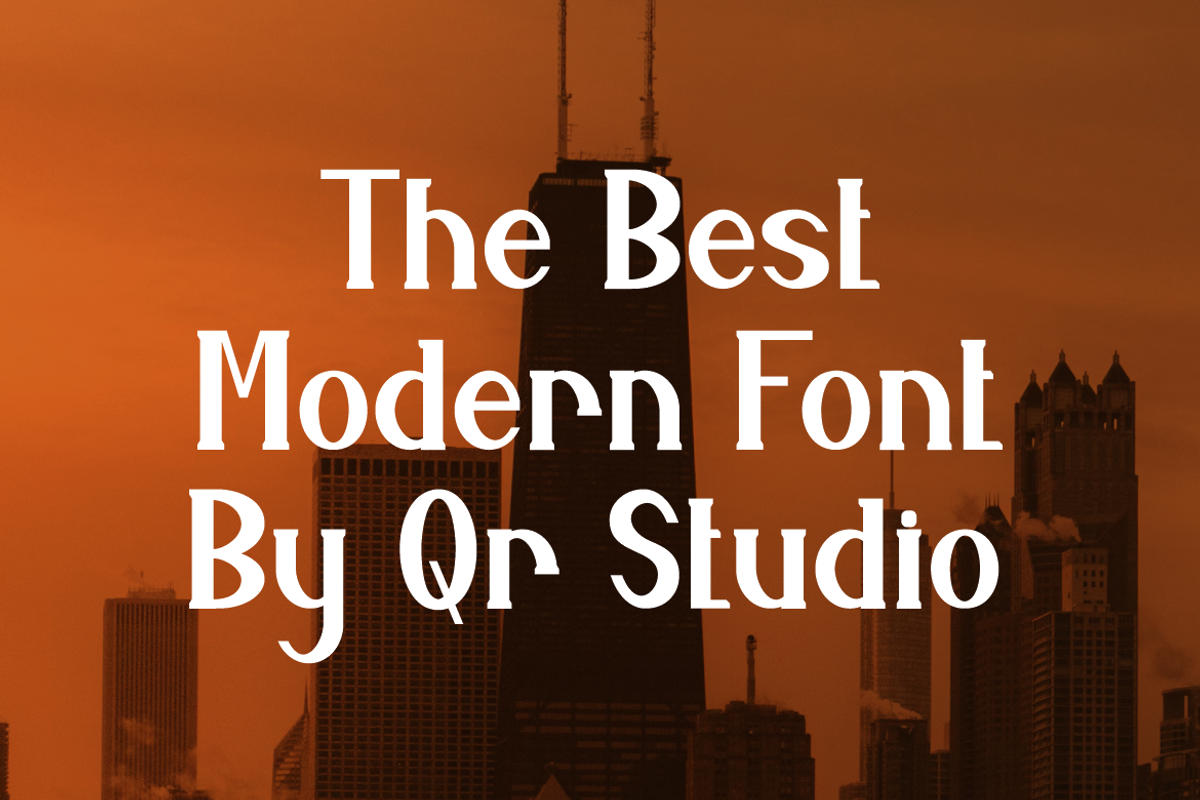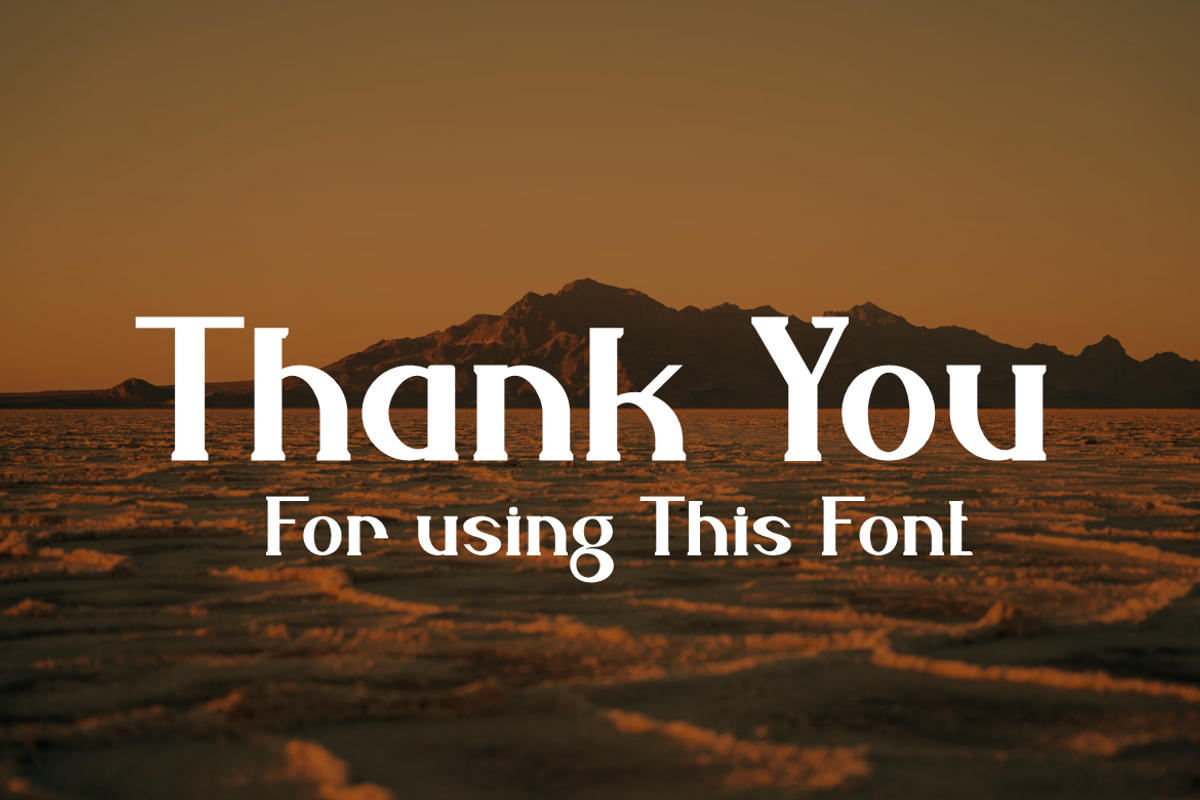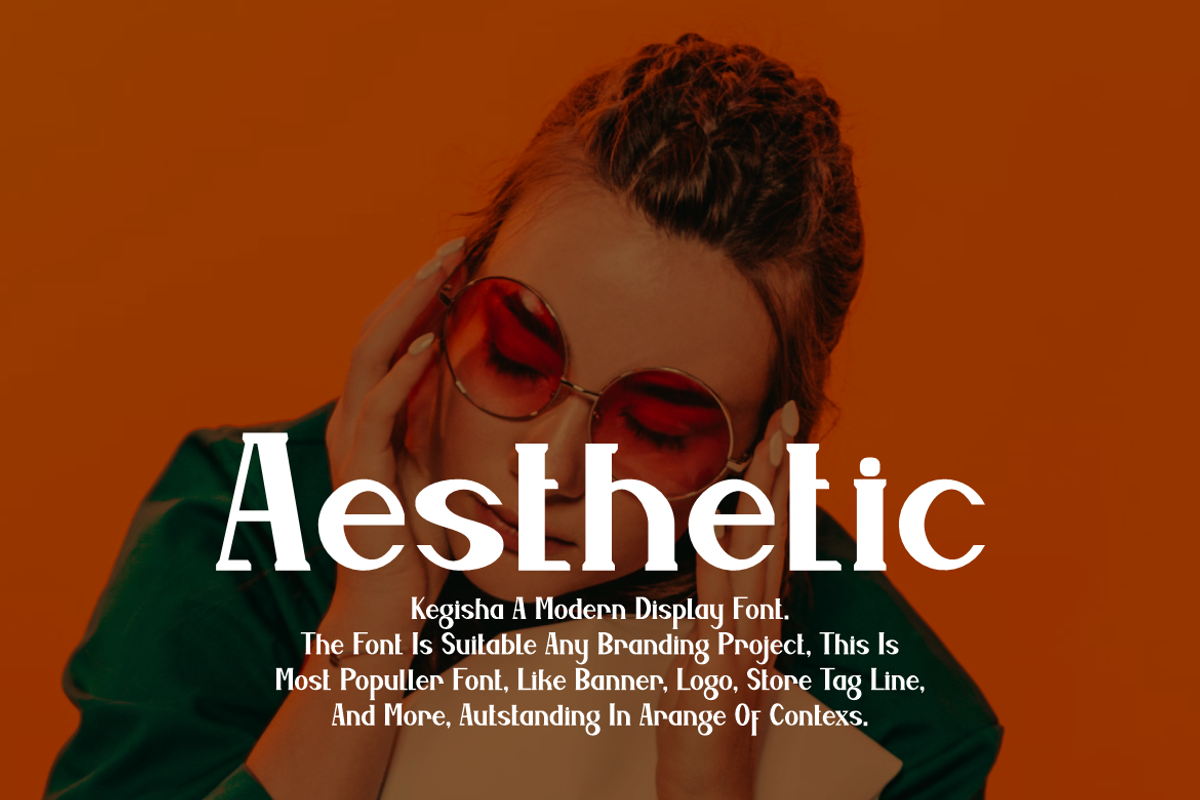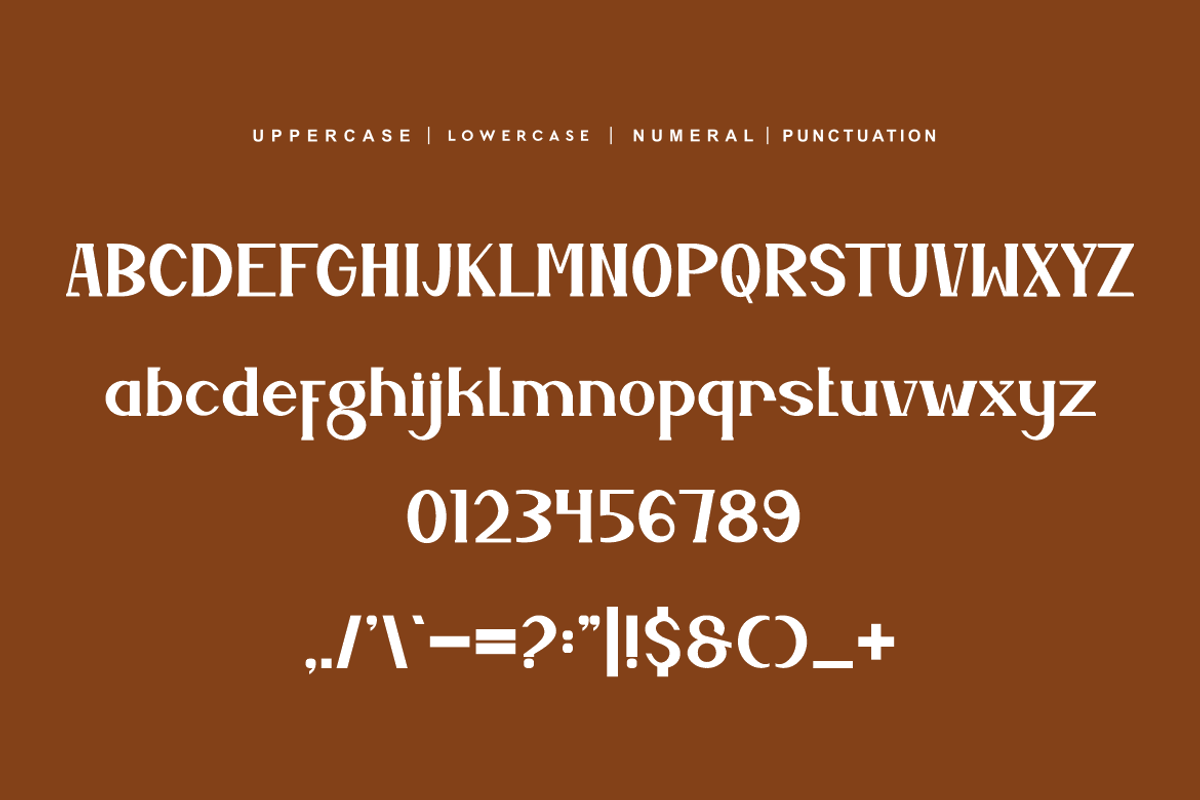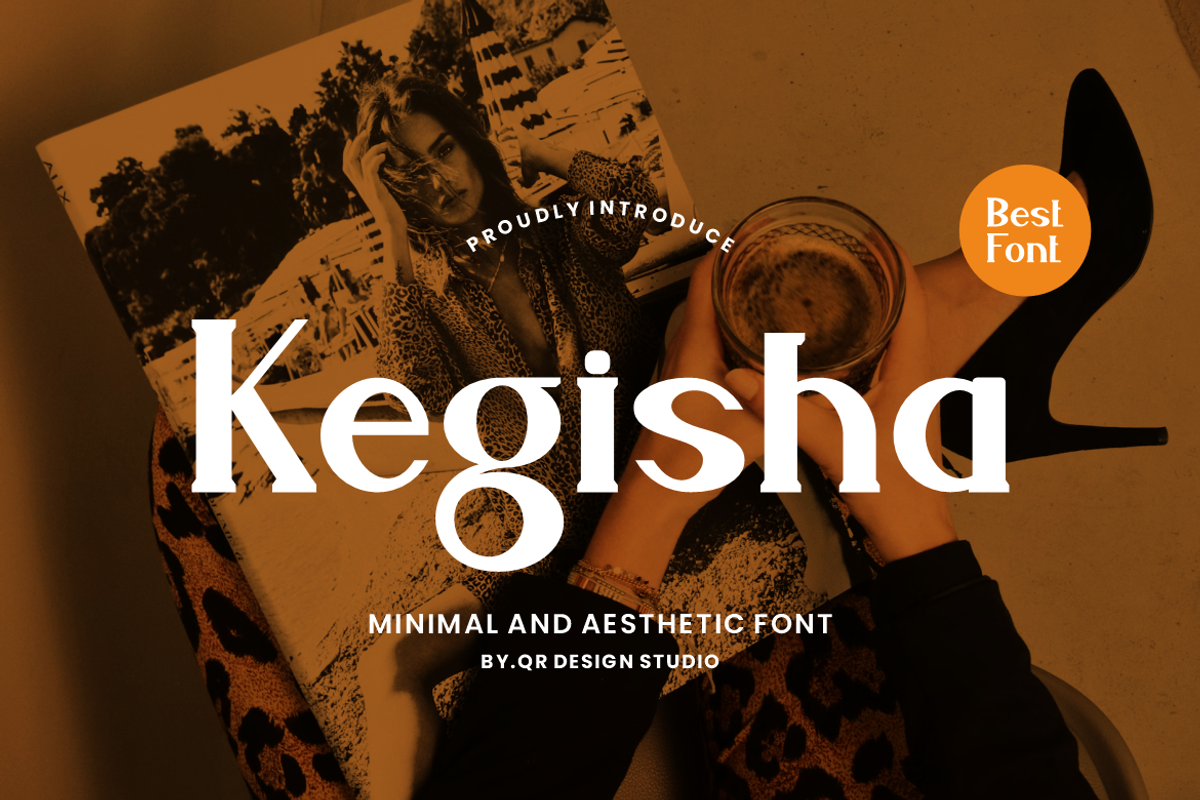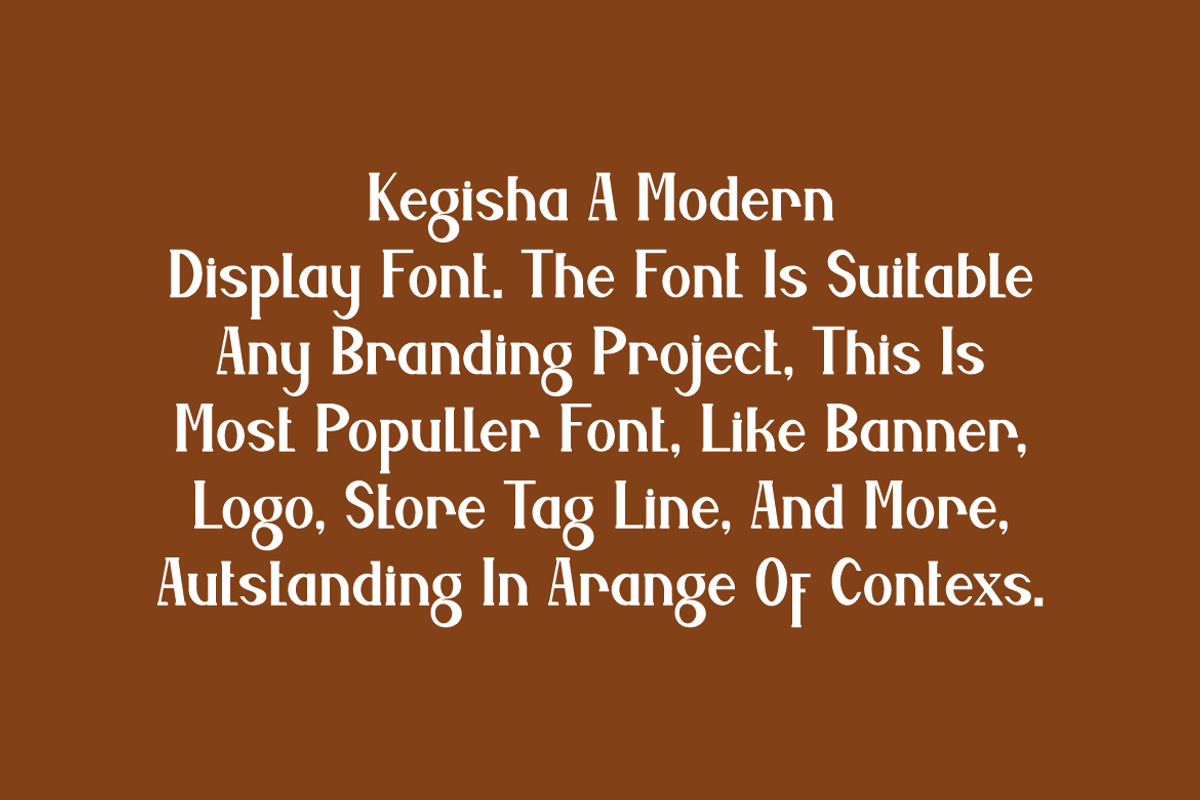
Kegisha - Aesthetic & Minimal Font
Kegisha Font is a serif and authentic display font. The font is suitable for any branding project like poster, logo, sport, and many more. Outstanding in a wide range of contexts.